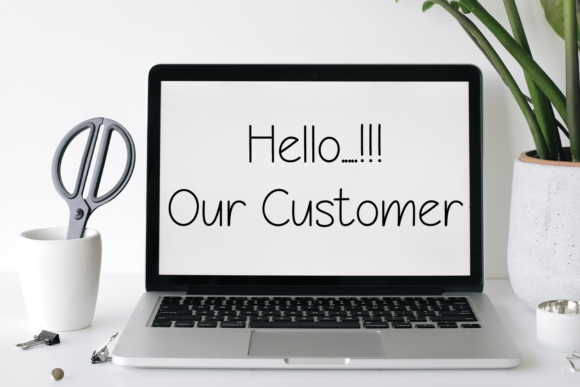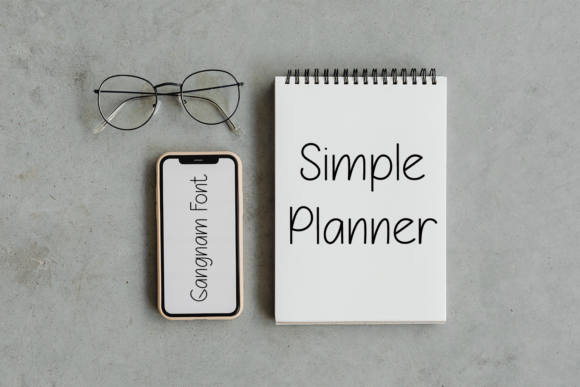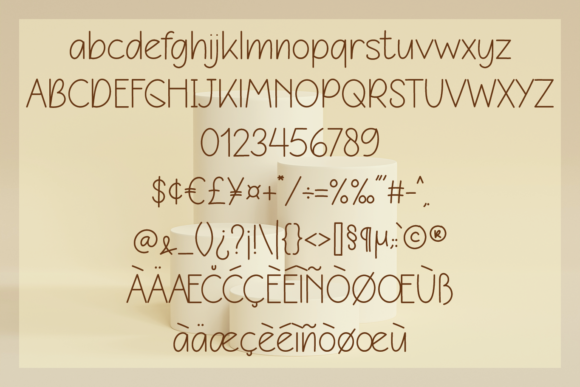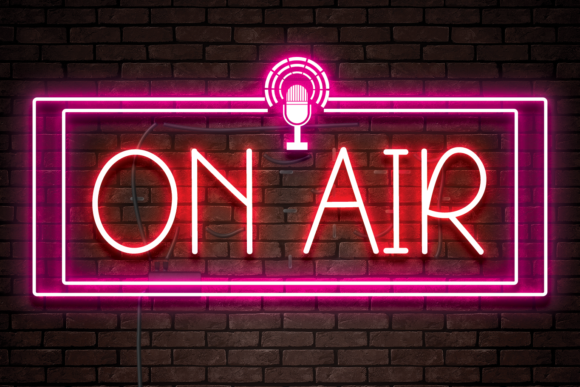
Introduction to Gangnam Font
Gangnam is a thin and tall sans serif font.
It can easily be matched to various projects, so add it to your most creative ideas and notice how it makes them stand out and come alive .
Key Features of Gangnam Font